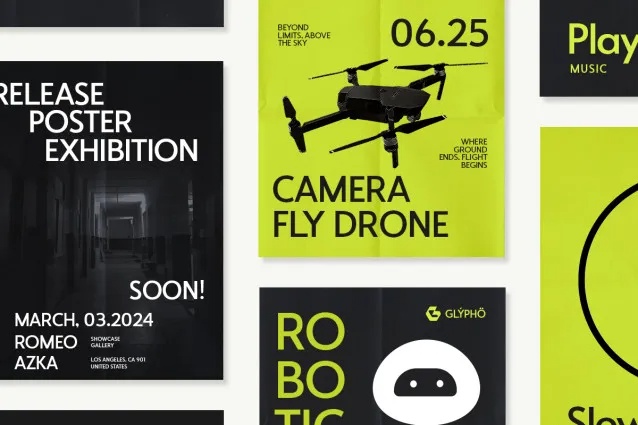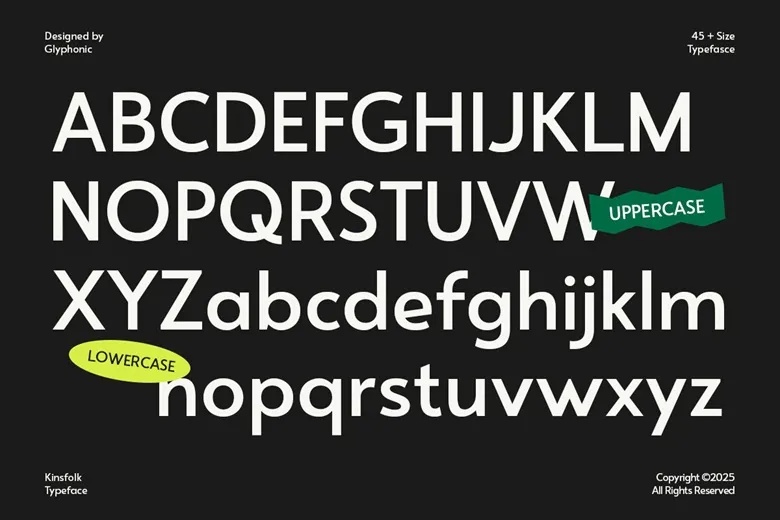
Kinsfolk is a contemporary sans serif typeface that blends modern elegance with a touch of futuristic style. Perfect for headlines, branding, logos, packaging, and editorial layouts, it is crafted to leave a lasting impression. With its high-contrast strokes and sleek geometric forms, Kinsfolk brings both character and sophistication to any project. Versatile and fashion-forward, it suits designs in lifestyle, art, and creative industries.
Kinsfolk Sans Serif Font